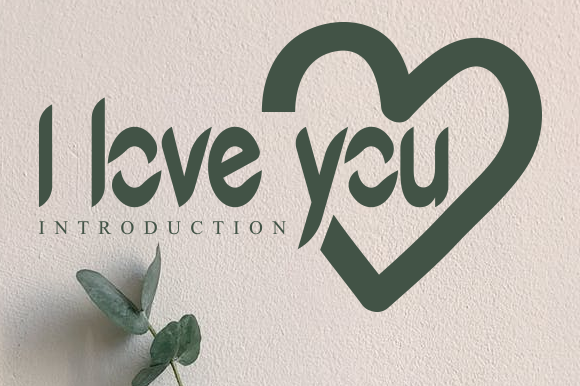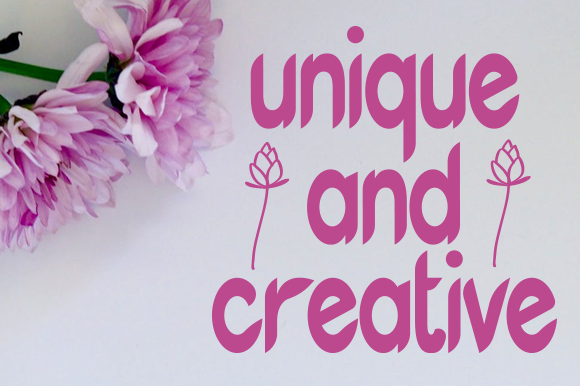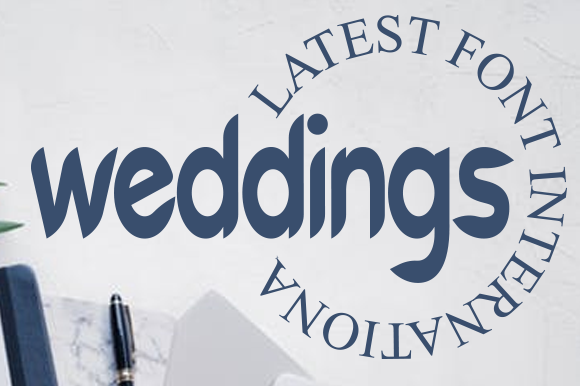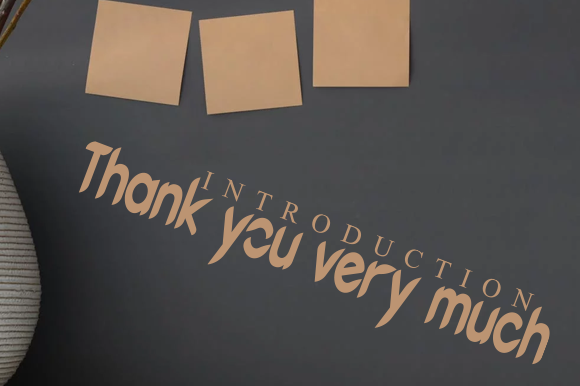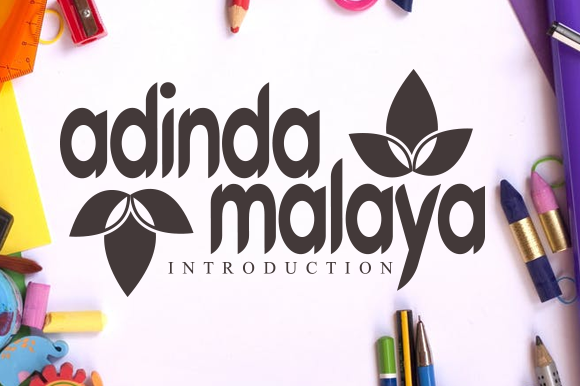
Introducing Adinda Malaya Font: The Perfect Blend of Style and Versatility
In the world of typography, a good font can make all the difference in the success of a design project. Whether you’re a seasoned designer or a crafty DIY enthusiast, finding the right font can be a daunting task. That’s where Adinda Malaya Font comes in – a bold display font that’s been carefully handcrafted to become a true favorite among designers and crafters alike.
The Charm of Adinda Malaya Font
Adinda Malaya Font boasts a casual charm that makes it appear wonderfully down-to-earth, readable, and incredibly versatile. Its unique blend of style and simplicity makes it perfect for a wide range of design projects, from branding and advertising to crafting and DIY projects.
One of the standout features of Adinda Malaya Font is its bold and eye-catching design. The font’s carefully crafted letters are designed to grab attention and make a lasting impression, making it perfect for headlines, titles, and other display text.
What Makes Adinda Malaya Font So Versatile?
So, what makes Adinda Malaya Font so versatile? For starters, its clean and simple design makes it easy to read, even at smaller font sizes. This makes it perfect for body text, captions, and other smaller text elements.
Additionally, Adinda Malaya Font is highly adaptable, making it suitable for use in a wide range of design projects, including:
• Branding and advertising: Use Adinda Malaya Font to create bold and eye-catching logos, taglines, and ad copy.
• Crafting and DIY projects: Add a personal touch to your crafting and DIY projects with Adinda Malaya Font’s unique and charming design.
• Digital design: Use Adinda Malaya Font in your digital designs, such as website headers, social media graphics, and more.
• Print design: Adinda Malaya Font is perfect for print design projects, including brochures, flyers, posters, and more.
The Benefits of Using Adinda Malaya Font
So, why choose Adinda Malaya Font for your next design project? Here are just a few benefits of using this amazing font:
• Unique and eye-catching design: Adinda Malaya Font is sure to grab attention and make a lasting impression.
• Highly versatile: Use Adinda Malaya Font in a wide range of design projects, from branding and advertising to crafting and DIY projects.
• Easy to read: Adinda Malaya Font’s clean and simple design makes it easy to read, even at smaller font sizes.
• Handcrafted with love: Adinda Malaya Font is carefully handcrafted to ensure a unique and personal touch.
In conclusion, Adinda Malaya Font is a bold display font that’s sure to become a true favorite among designers and crafters alike. Its casual charm, versatility, and unique design make it perfect for a wide range of design projects. Whether you’re looking to add a personal touch to your crafting and DIY projects or create bold and eye-catching branding and advertising materials, Adinda Malaya Font is the perfect choice.